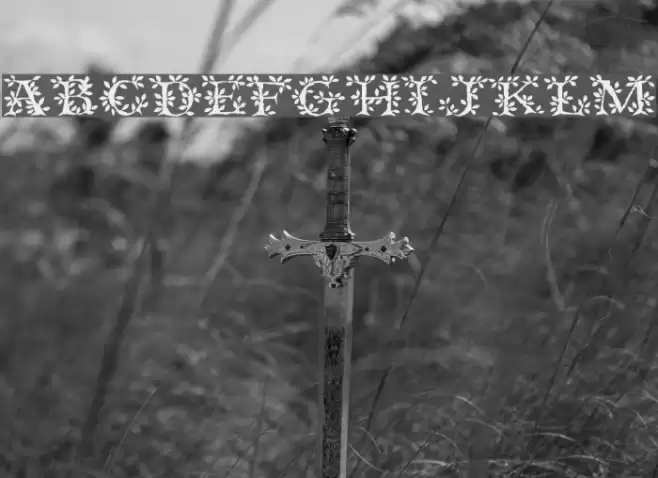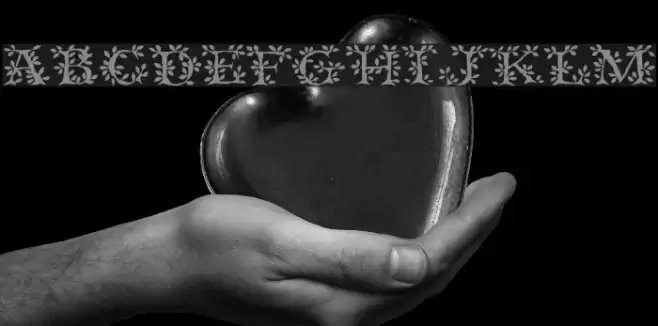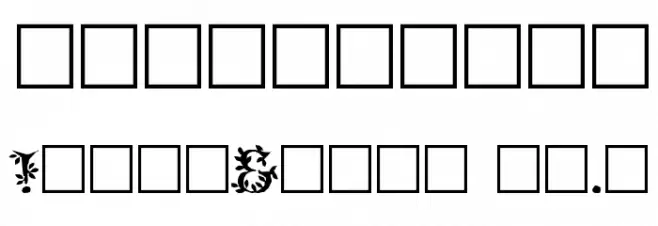
Tenderleaf Regular Font
Tenderleaf Regular Description
This font features an intricate and decorative style, with each letter adorned with leaf-like embellishments that create a natural and organic feel. The uppercase letters are particularly ornate, making them stand out with their unique, nature-inspired design. The overall appearance is both artistic and elegant, suitable for projects that require a touch of sophistication and creativity. The font's decorative elements make it ideal for use in designs that aim to capture attention and convey a sense of elegance and nature.
A decorative font with leaf-like embellishments for an organic, elegant look from Uncategorized fonts.
- Proposed Projects: Ideal for wedding invitations, eco-friendly brand logos, nature-themed posters, and artistic book covers.
- Use Case: Logos, Headlines, Artistic projects